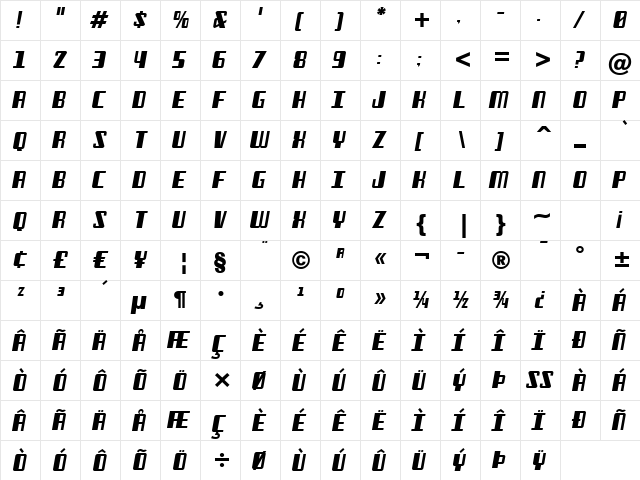
Freezer BTN Oblique
Design Context for Freezer BTN Typeface
Freezer BTN offers clean, dependable letterforms without strong stylistic allegiance, making it a practical choice for designers who need flexibility. The dynamic lean of this cut emphasises speed and emphasis in any layout.
Pro Tip: Use Freezer BTN for emphasis, pull quotes, and subheadings where its slanted energy can add rhythm to the layout.